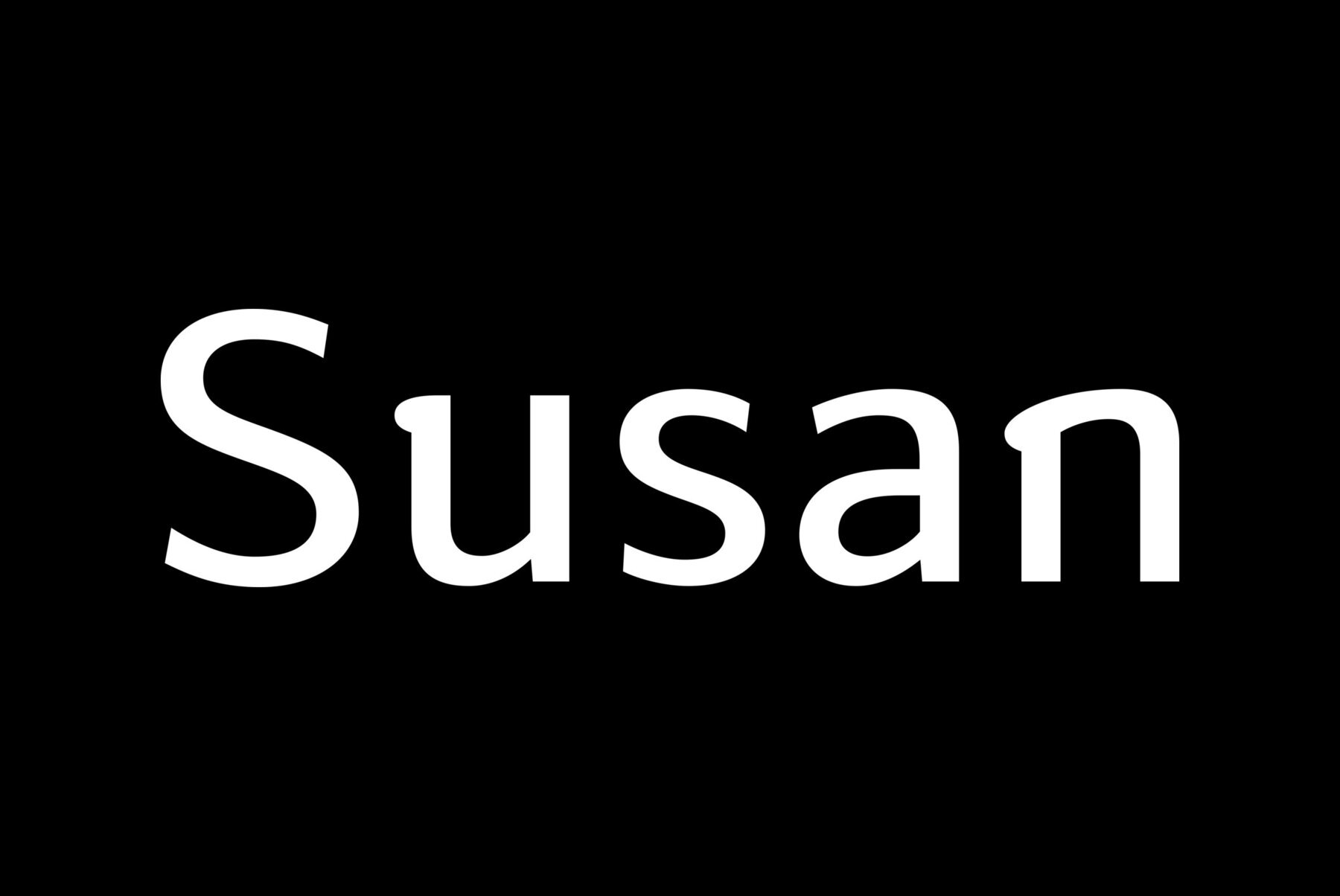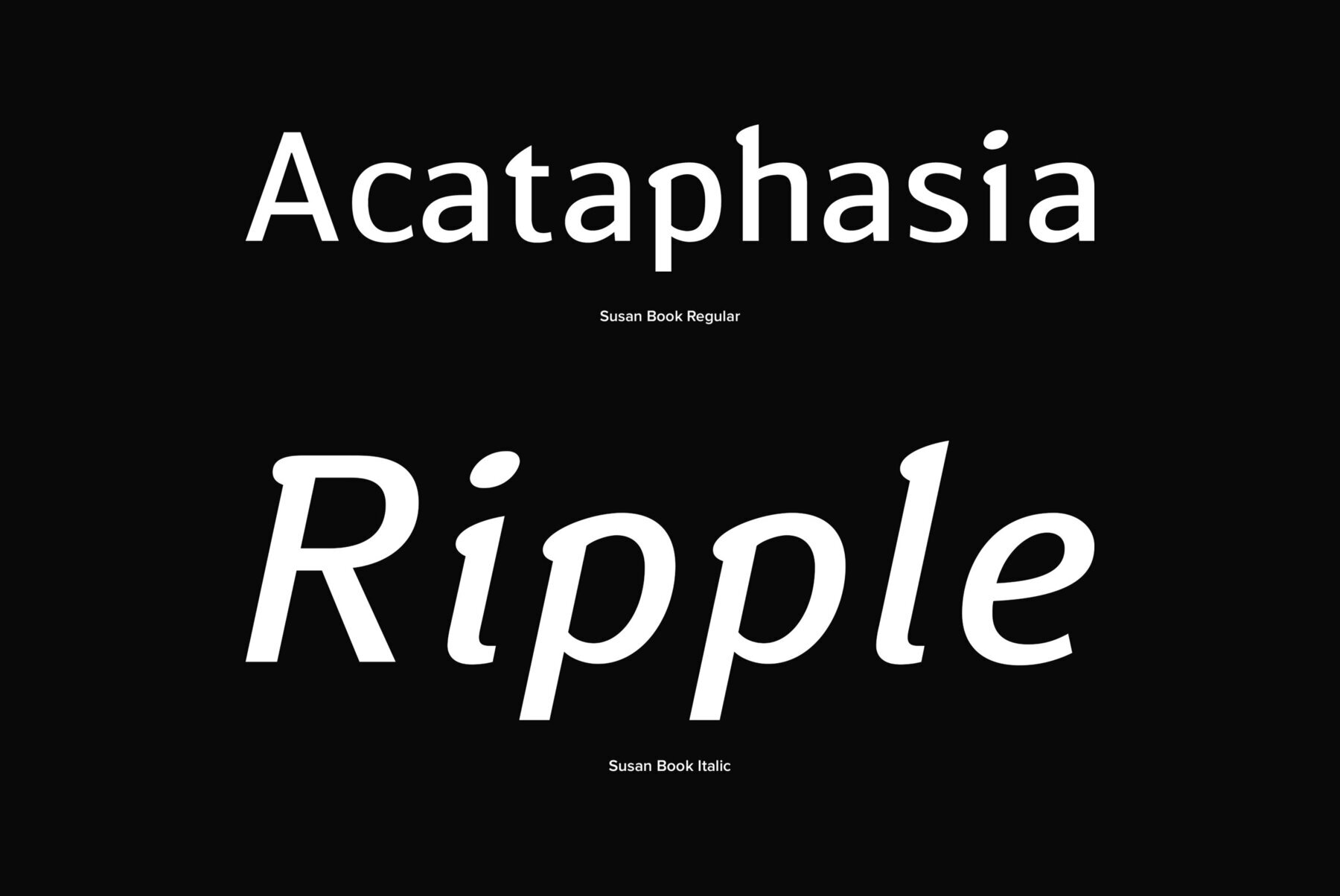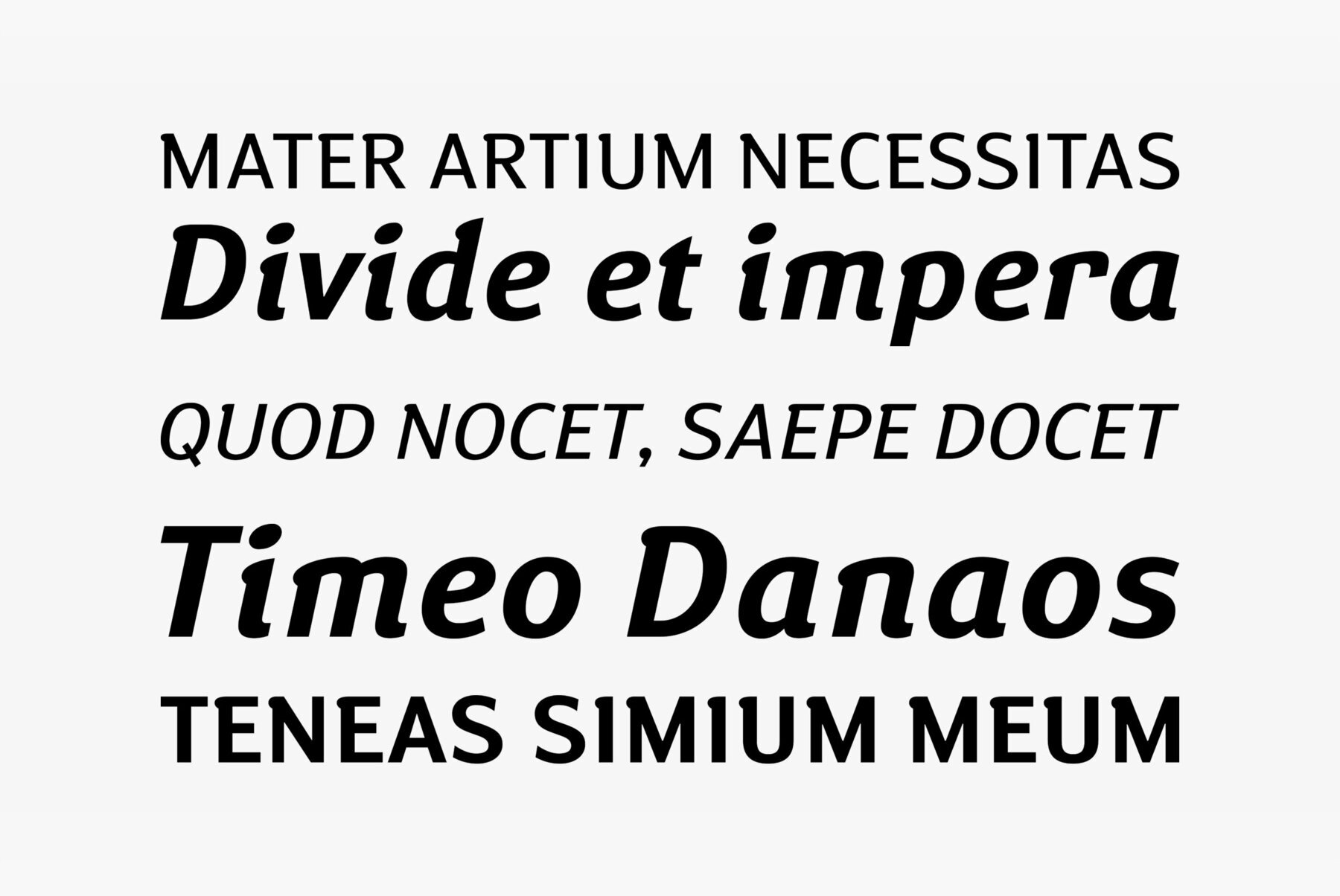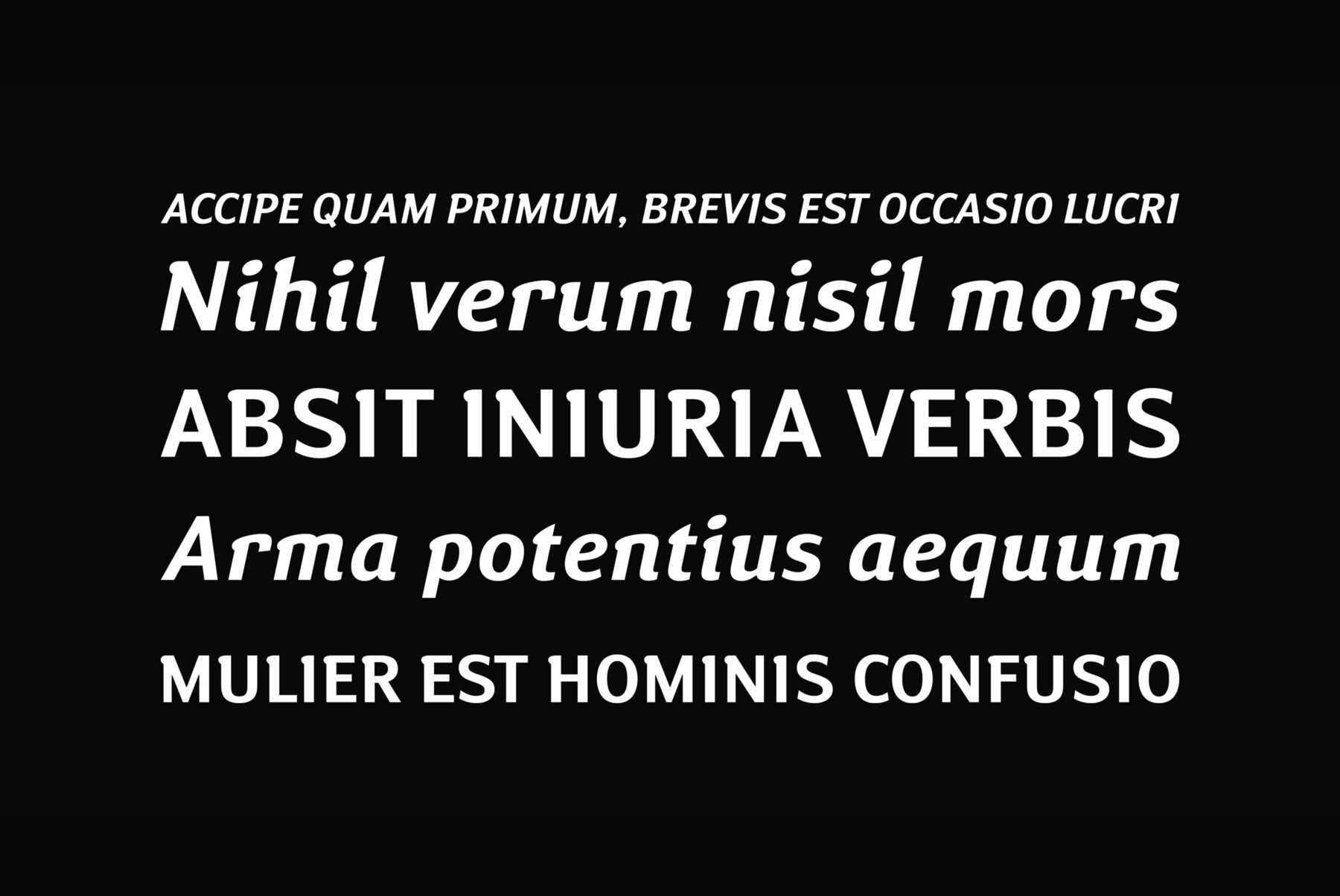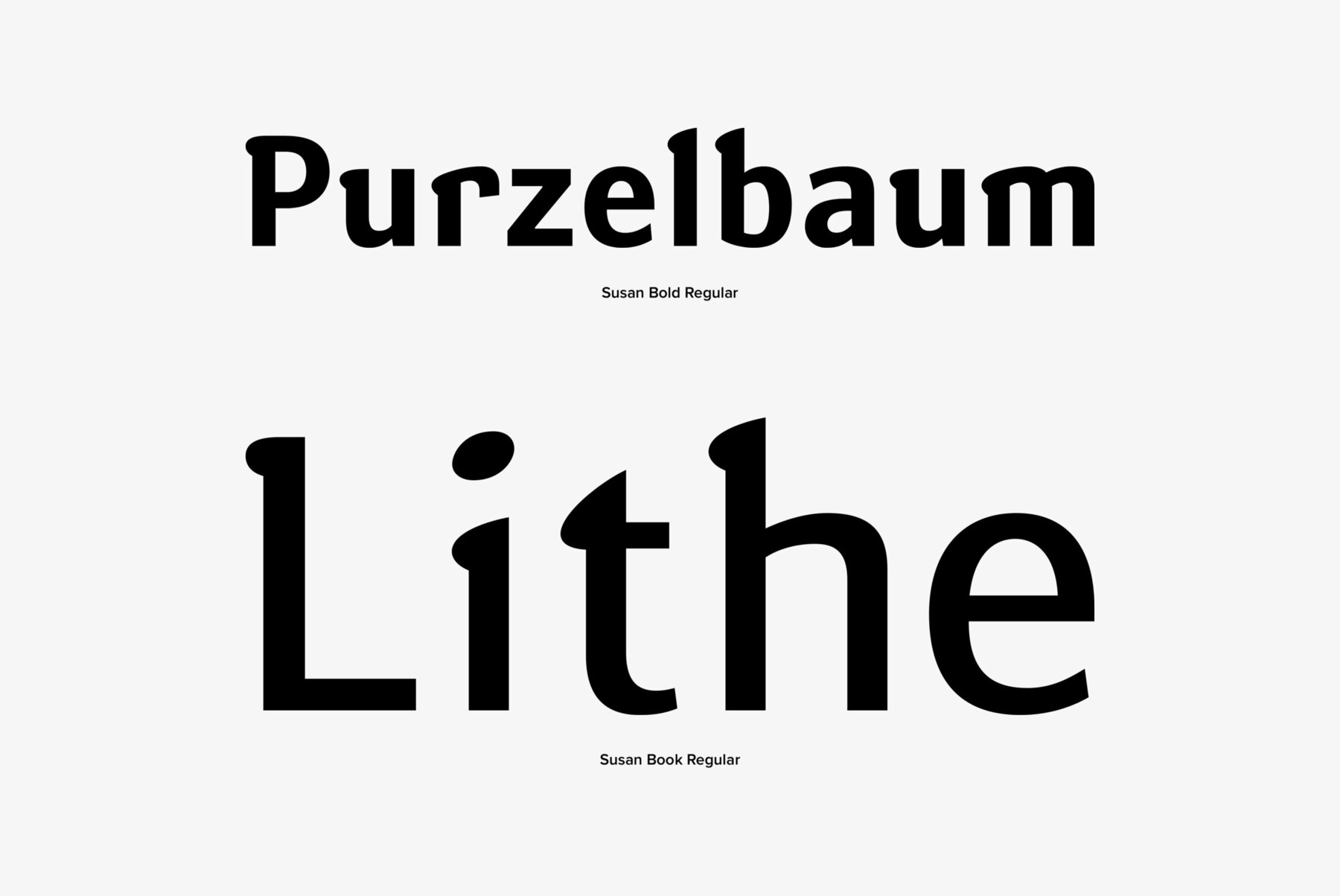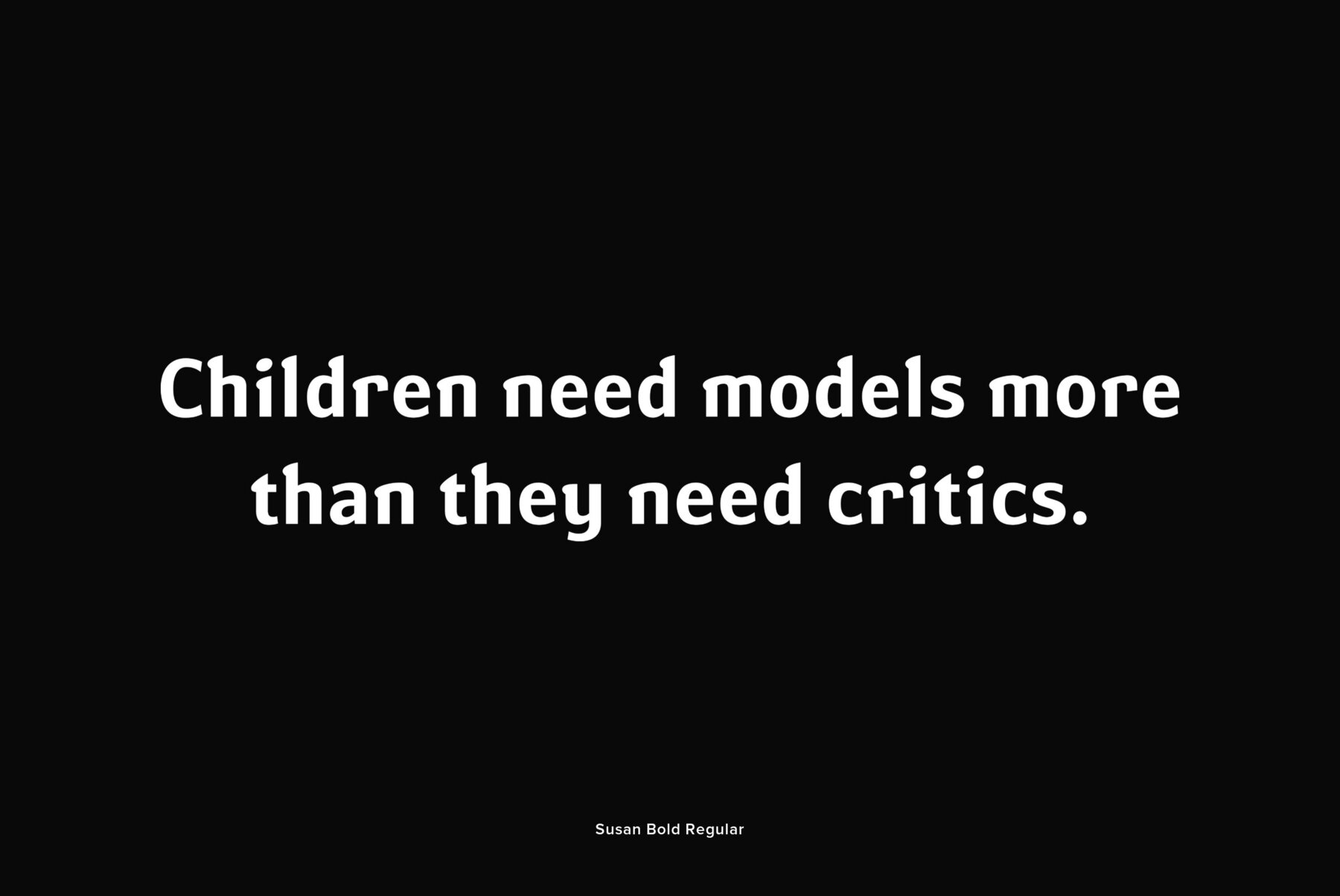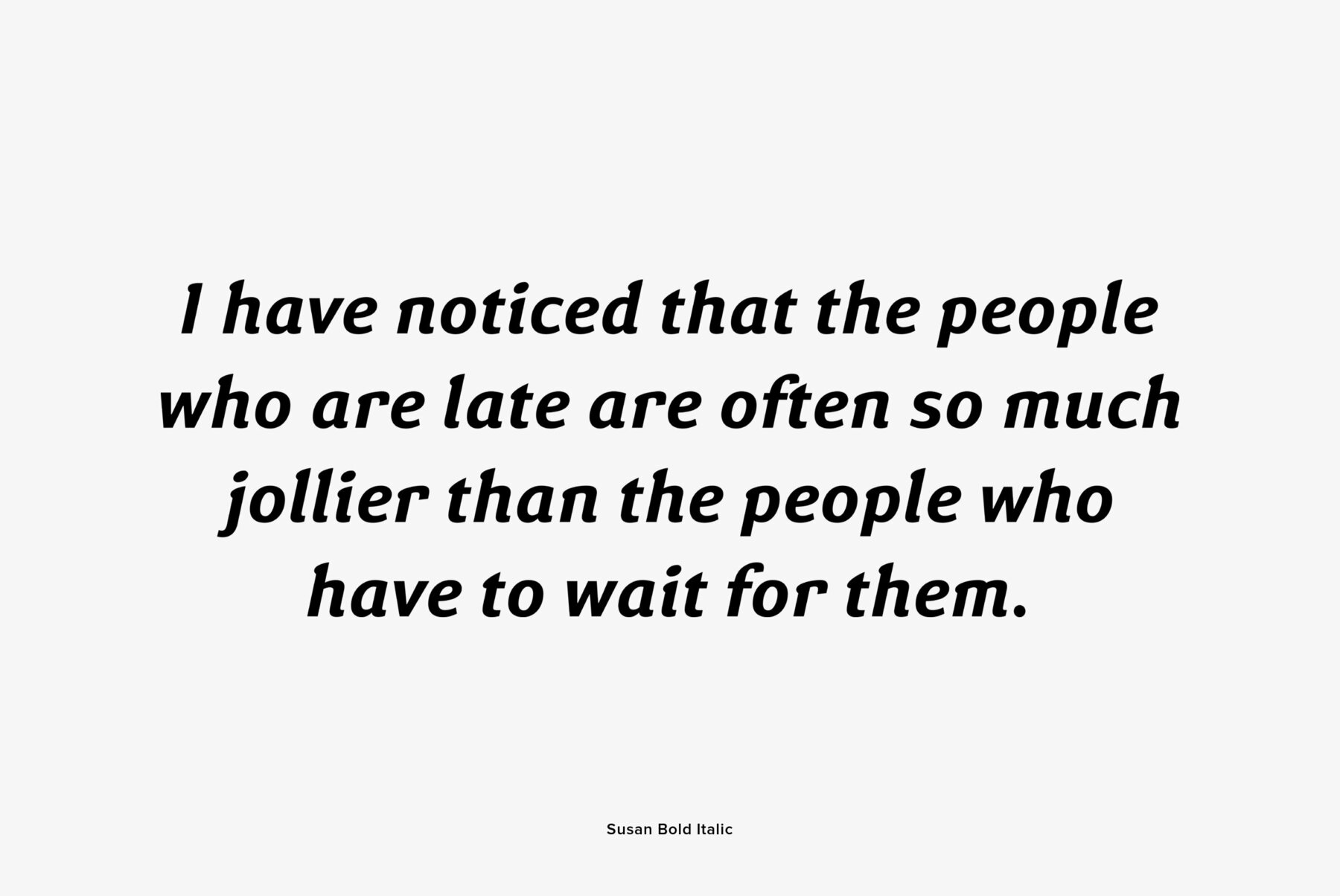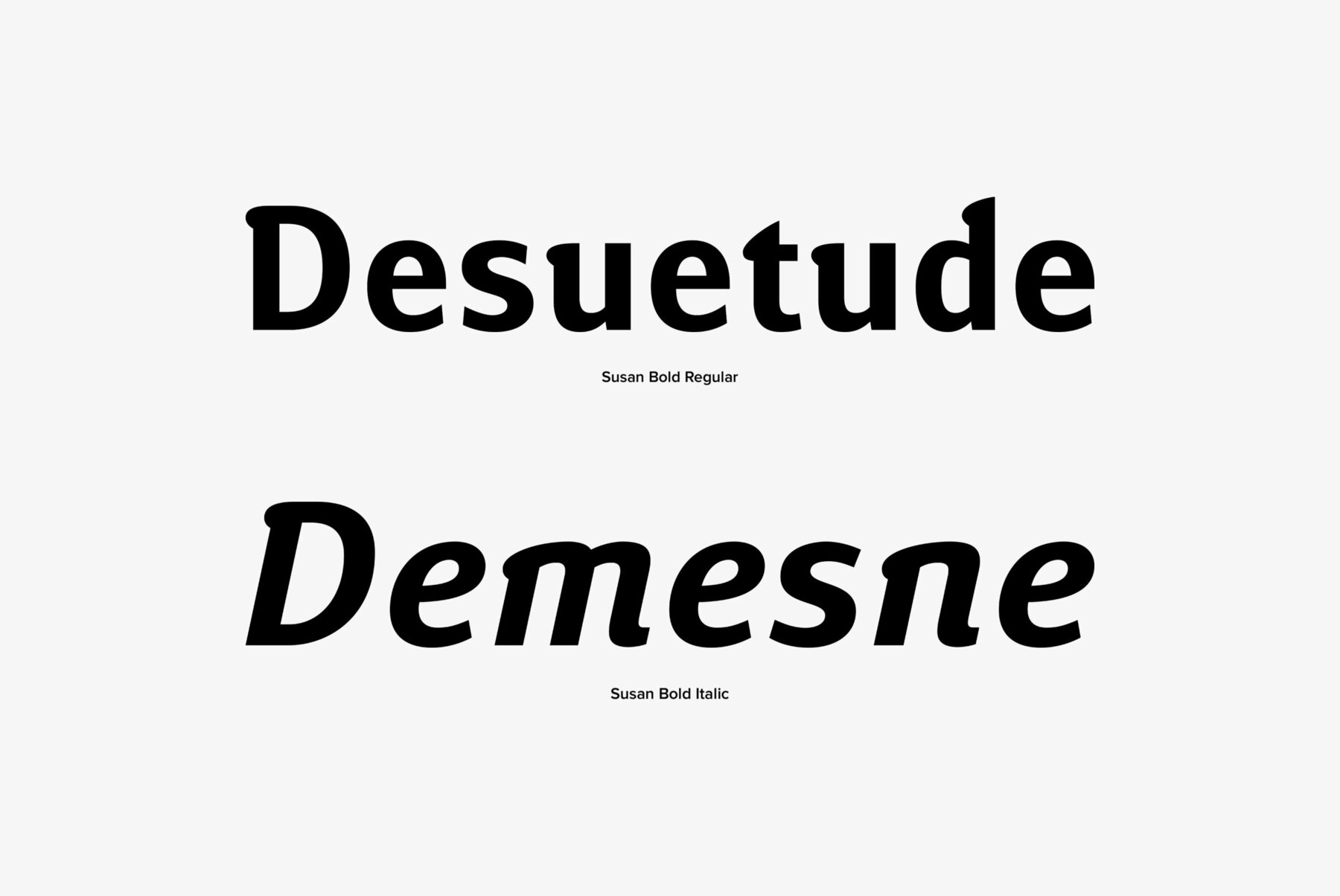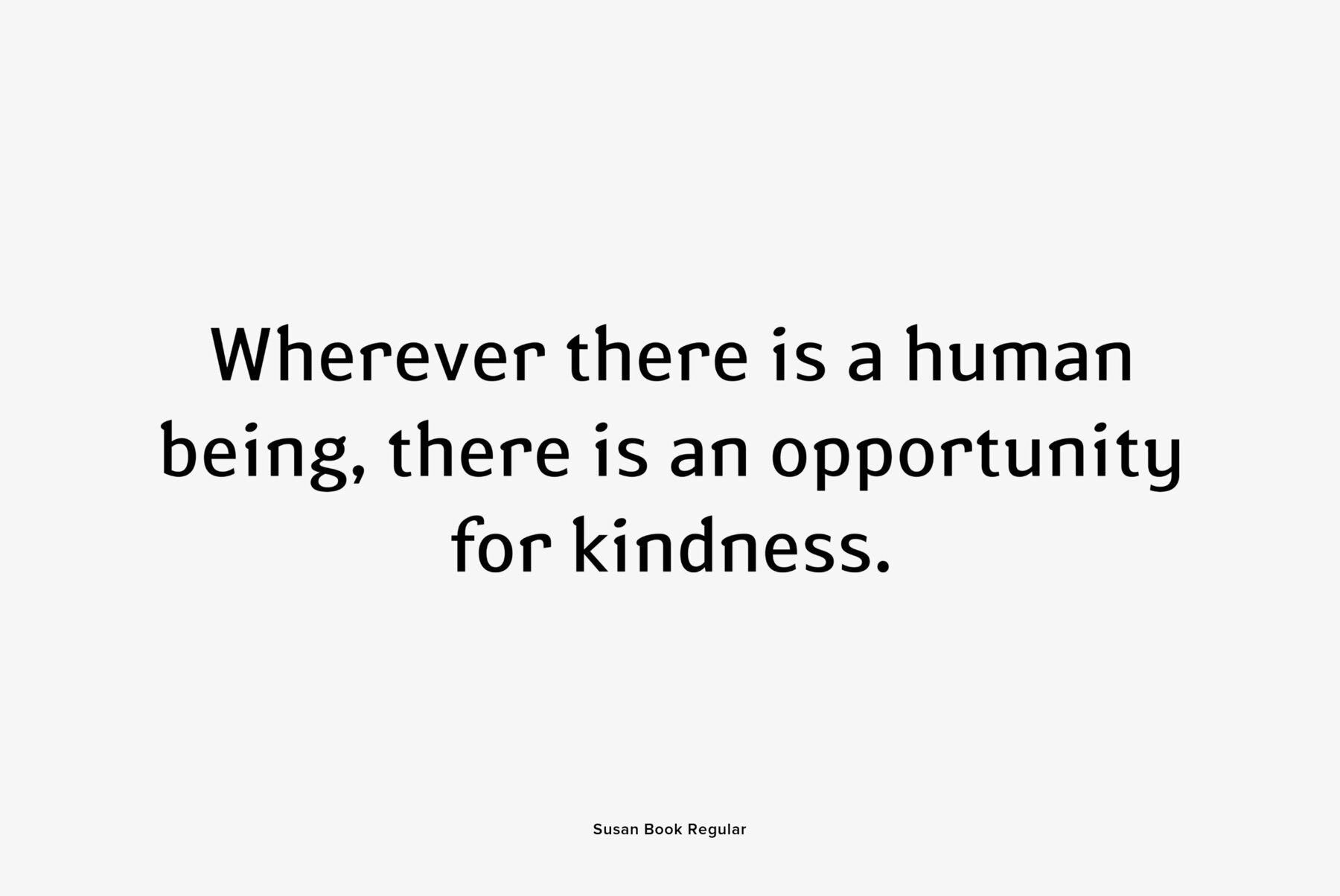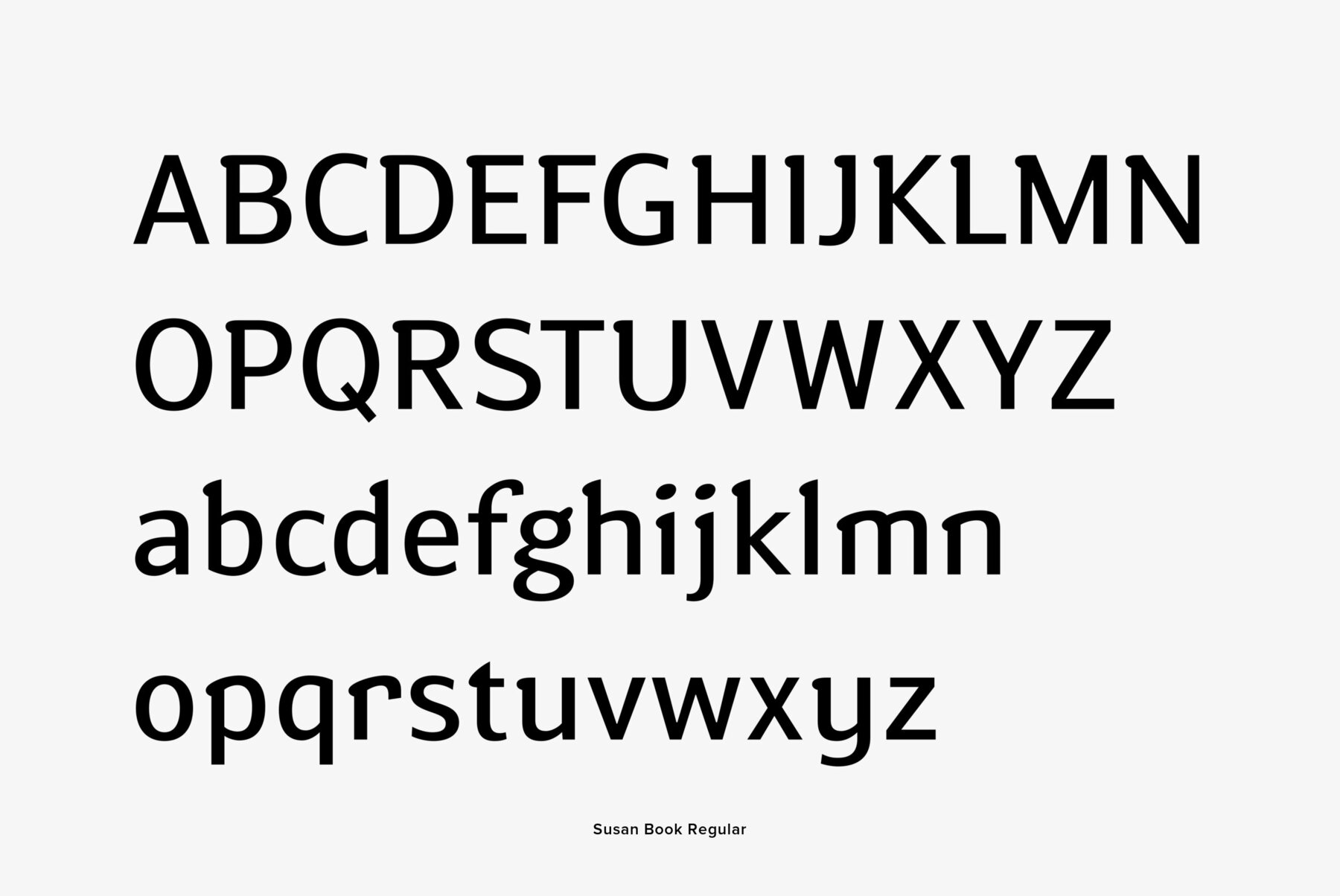
An original text and display type family was designed for ParaType in 2007 by Manvel Shmavonyan. The face named after designer’s wife. This is an open sans serif font with soft letterforms distinguished by rounded details resembling rudimentary serifs. The family contains true italics developed like in humanist sans serif fonts. Susan is well suited for short and middle range text composing as well as for use in advertising and display typography.